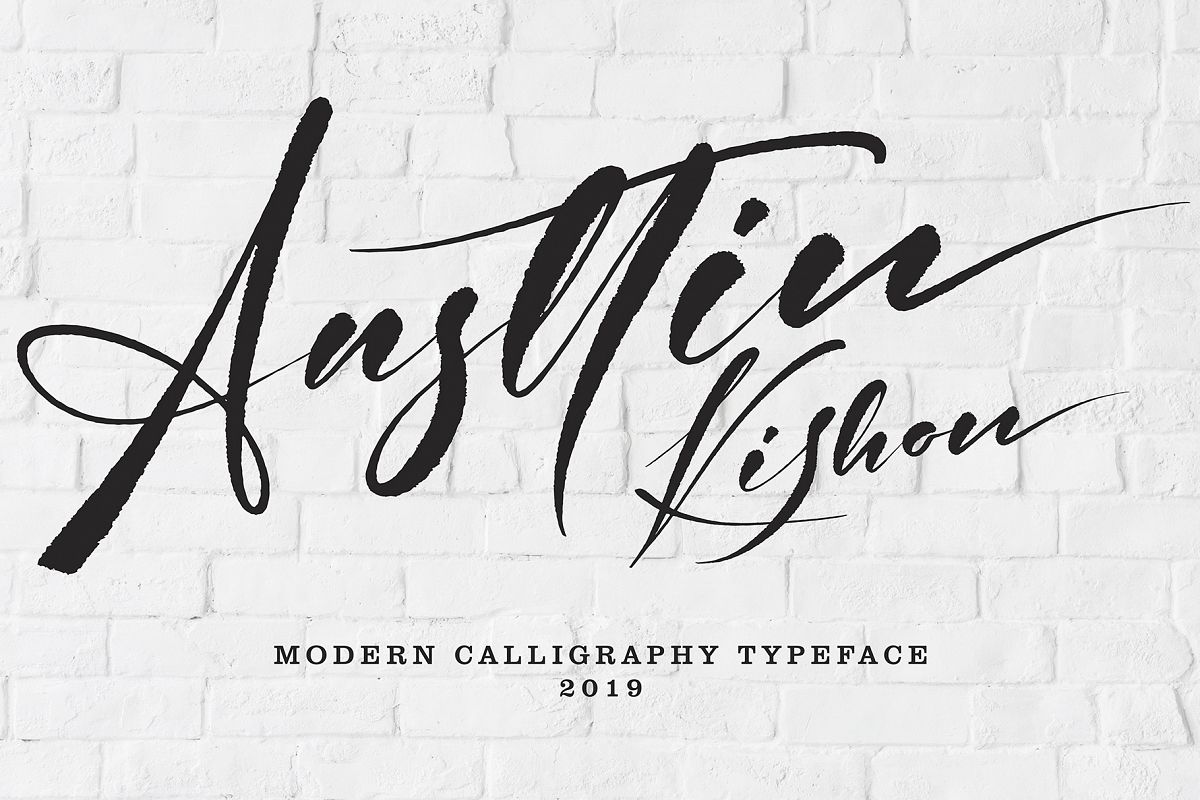
Ansttin Kishon
Ansttin Kishon font with new style  handwritten, this font will perfect for many different project ex: quotes, logo, blog header, poster, banding, fashion, apparel, letter, invitation, stationery, etc...